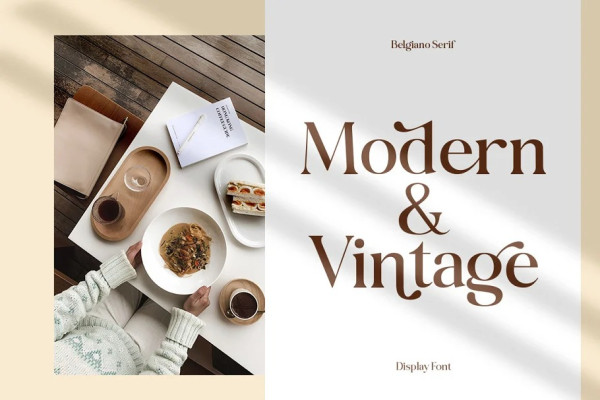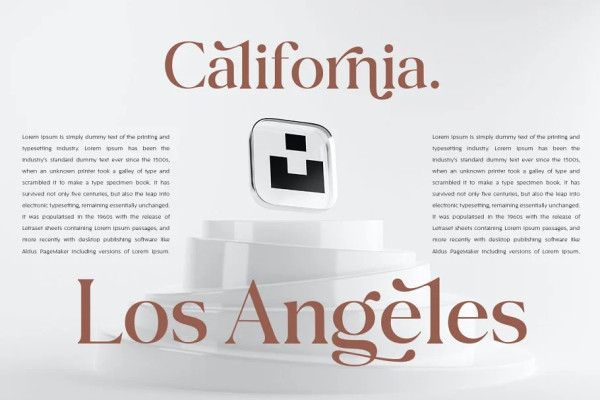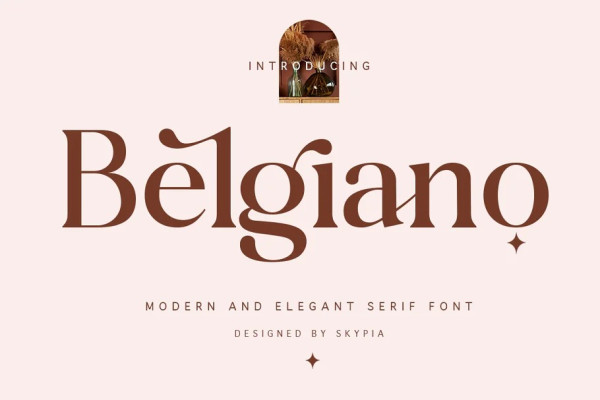
Belgiano Font
Belgiano Font – Elegant Ligature Font by Skypia introducing our new “Belgiano” Modern Ligature with Elegant Style this is perfect for branding, logos, invitation, masterheads and more.